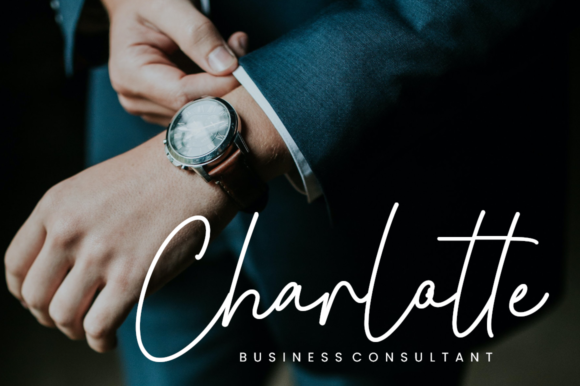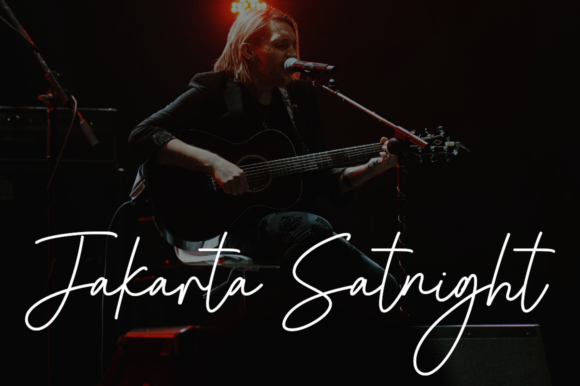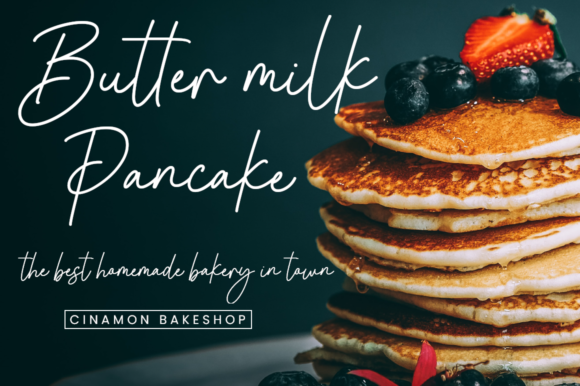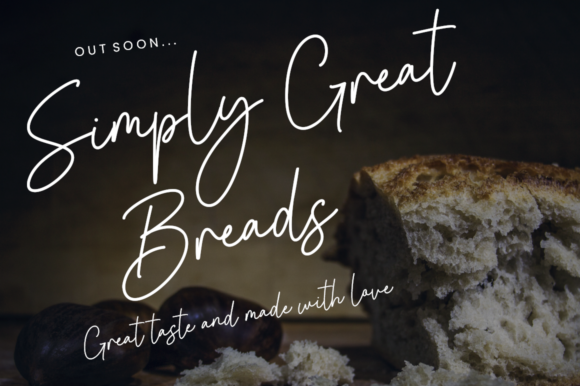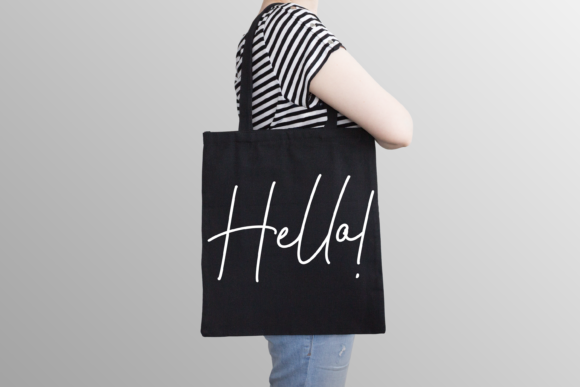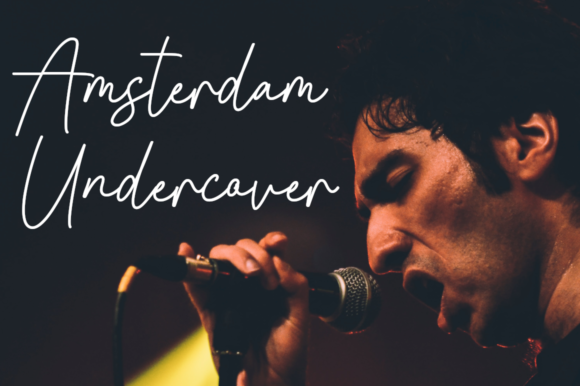
The Designer’s Delight: Bostante Font
I’ll never forget the time I was working on a project for a client who wanted a font that was both elegant and playful. I spent hours scouring the internet for the perfect match, but nothing seemed quite right. That was until I stumbled upon Bostante Font. It was love at first sight! 💕 In this article, I’ll share my experience with Bostante, its features, and how to make the most of it in your designs.
An Honest Review of Bostante Font
Bostante is an exquisite handwritten font that has quickly become a favorite in my design toolkit. Here’s what I love about it:
- ✨ Exquisite handwritten style that’s perfect for projects that require a personal touch
- 💃 Beautifully crafted to evoke a sense of elegance and sophistication
- 🎨 Versatile and can be used for a wide range of projects, from branding to invitations
Of course, no font is perfect, and Bostante has a few quirks:
- 🤔 Some users may find the font a bit too ornate for very casual projects
- ⚠️ Limited availability of certain characters, such as ligatures
The Story Behind Bostante Font
Bostante was designed by a talented type designer who wanted to create a font that was both elegant and approachable. The designer drew inspiration from traditional handwritten scripts, but with a modern twist. The result is a font that’s perfect for designers who want to add a personal touch to their projects.
| Font Name | Bostante Font |
| Author | RasdiType |
| What is Bostante Font? | Bostante is a beautiful handwritten font designed for creative projects. |
| Does Bostante support OpenType features? | Yes, Bostante supports OpenType features, including glyphs and stylistic alternates. |